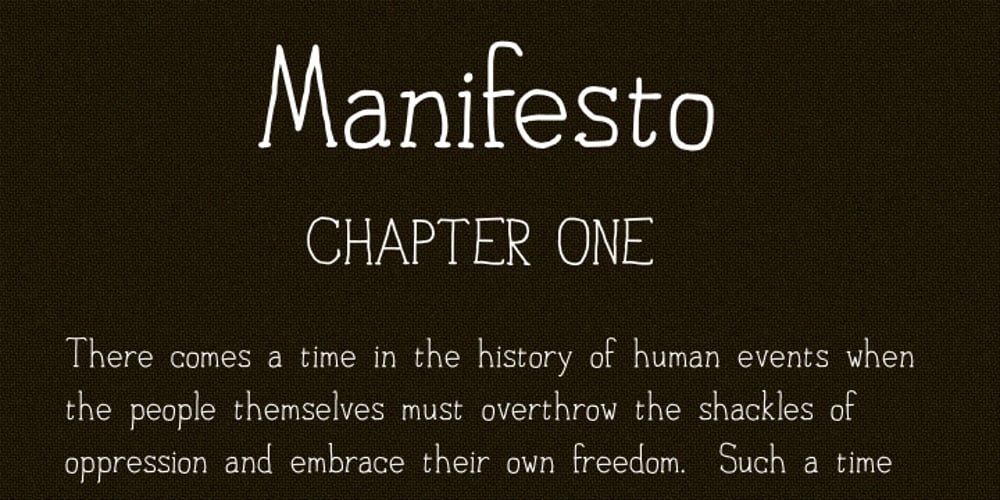
Personal Manifesto
Personal Manifesto font
Personal Manifesto Font Family was designed by Thomas Käding and published by Thomas Käding. Personal Manifesto contains 12 styles and family package options. This holographic font is great for writing your own manifesto, or for giving your anonymous letters to the government that personal touch that shows you care. Also good for children’s books.